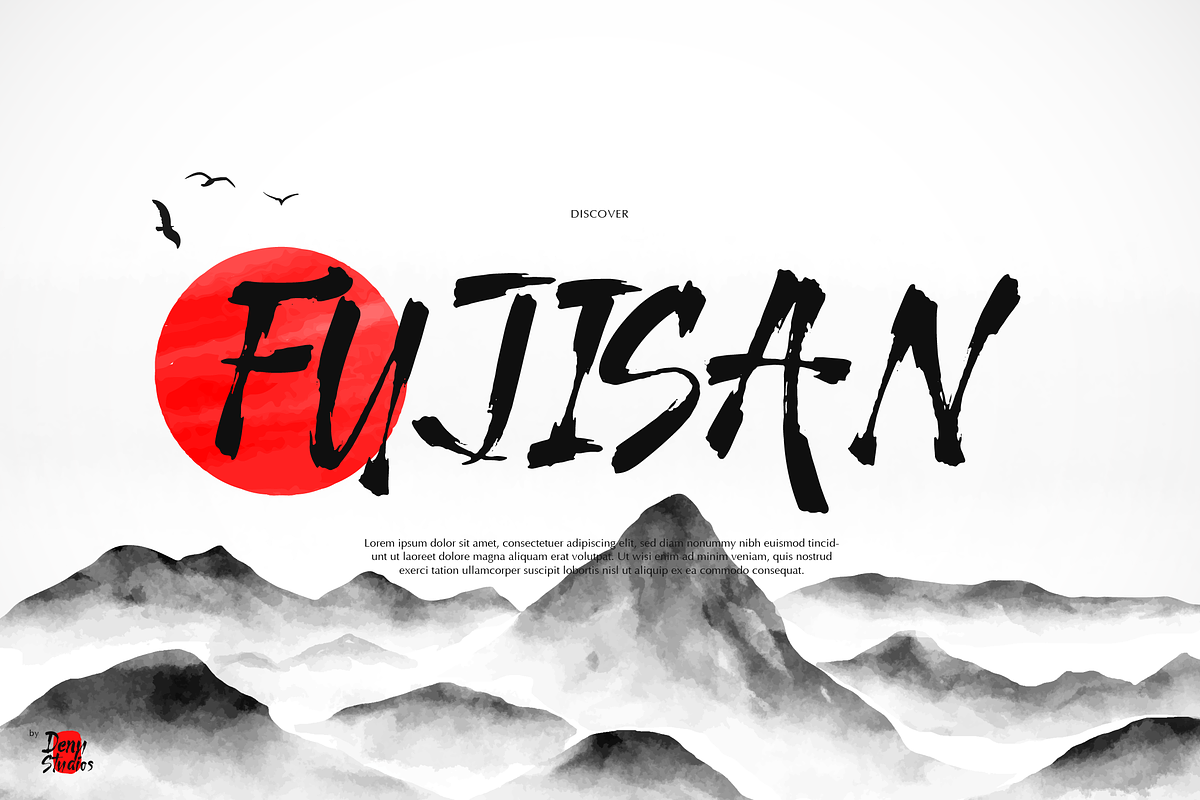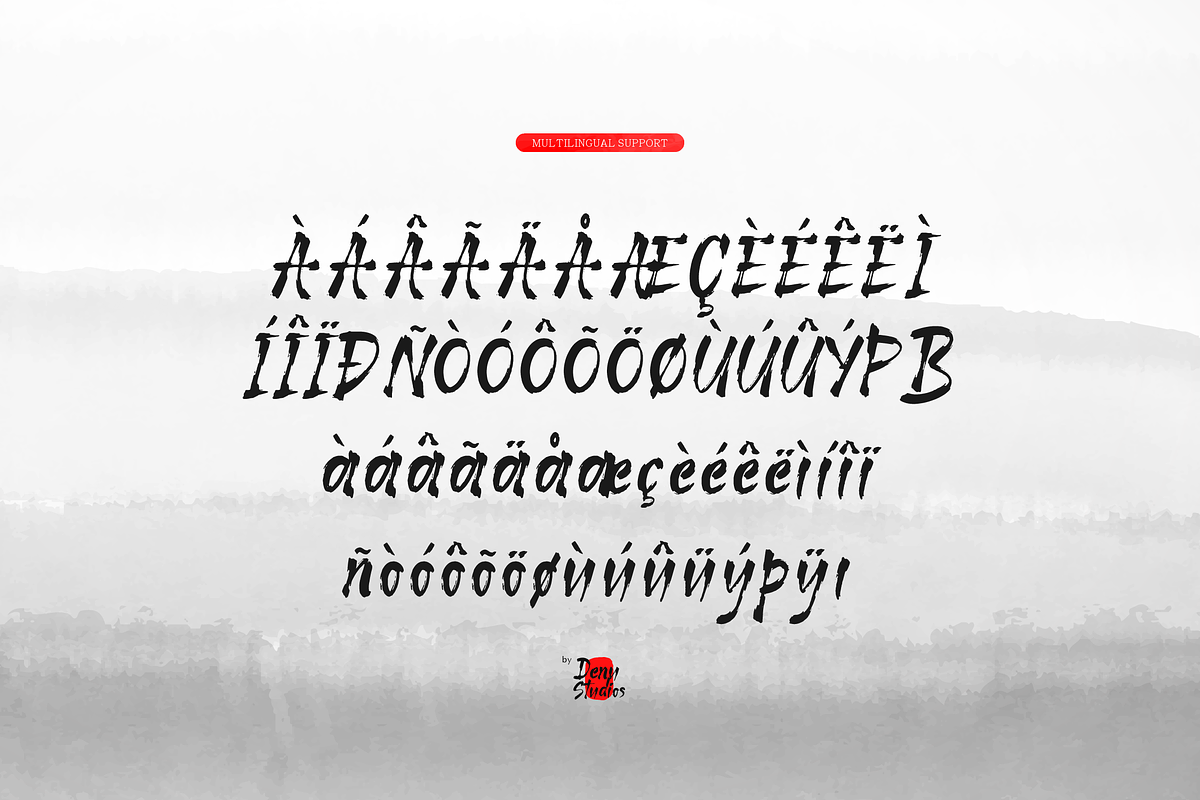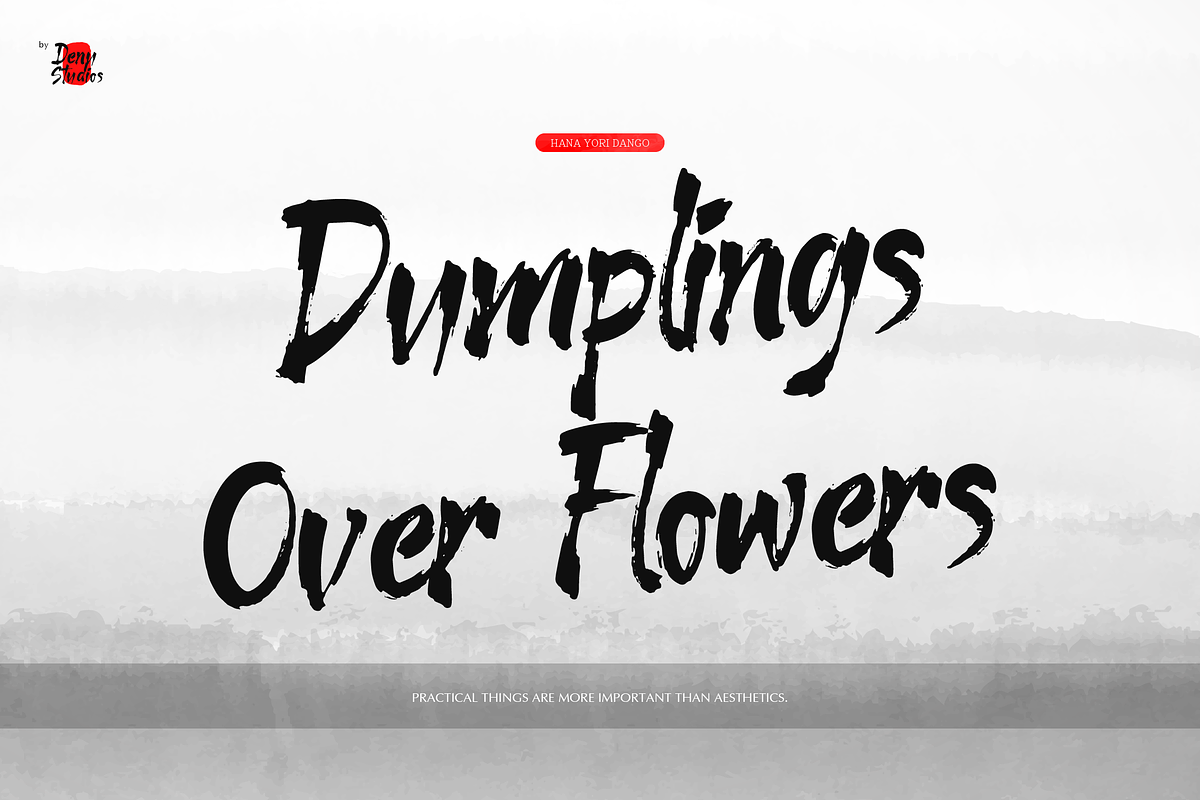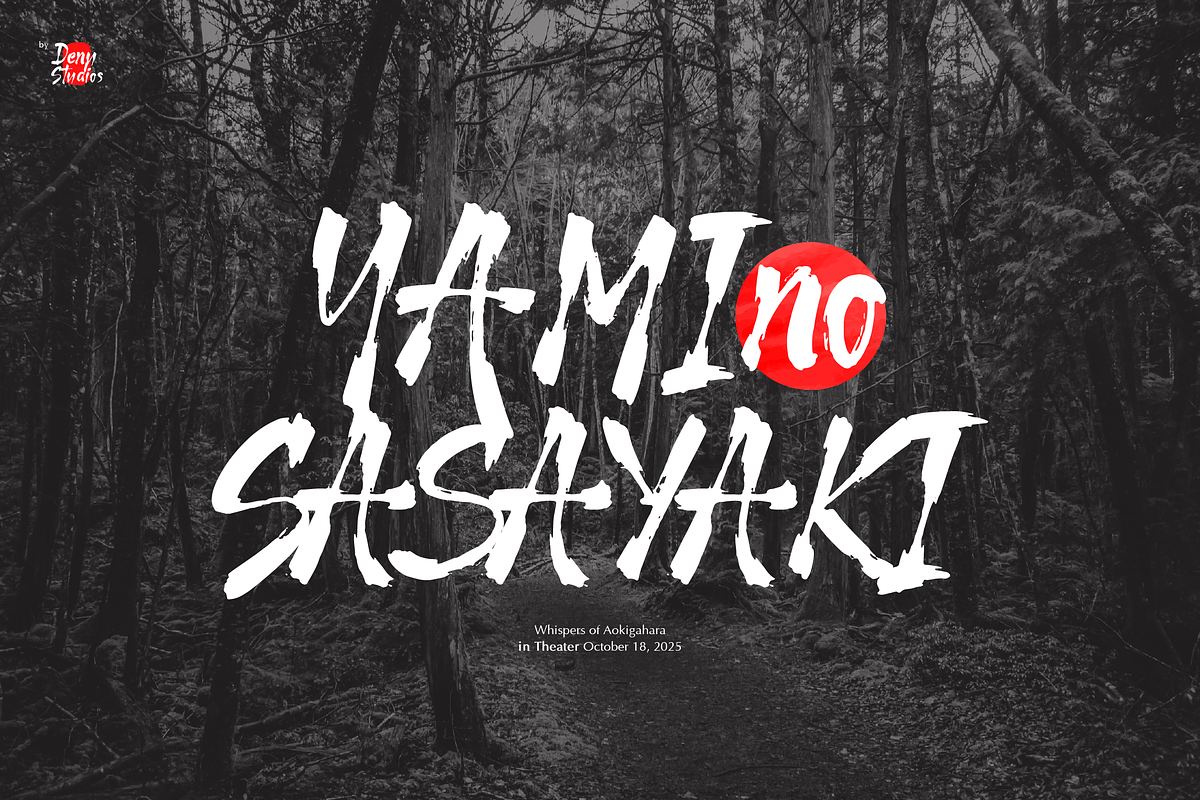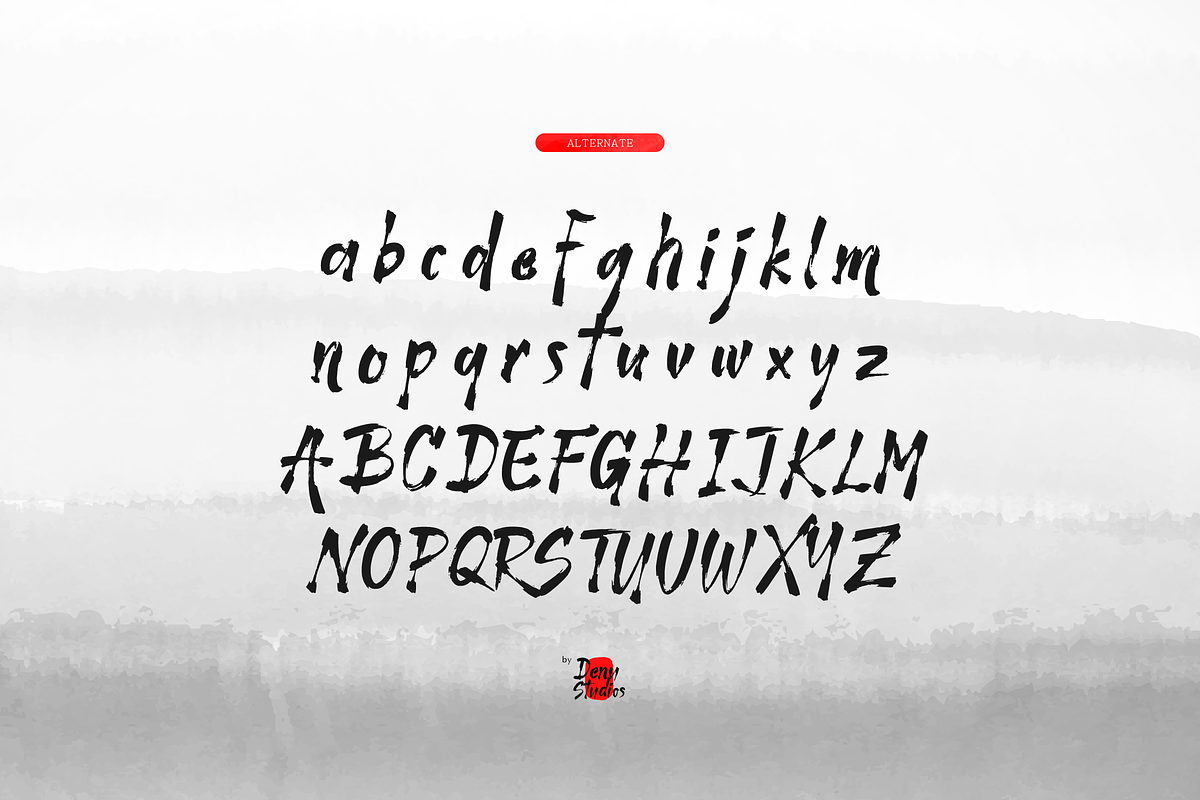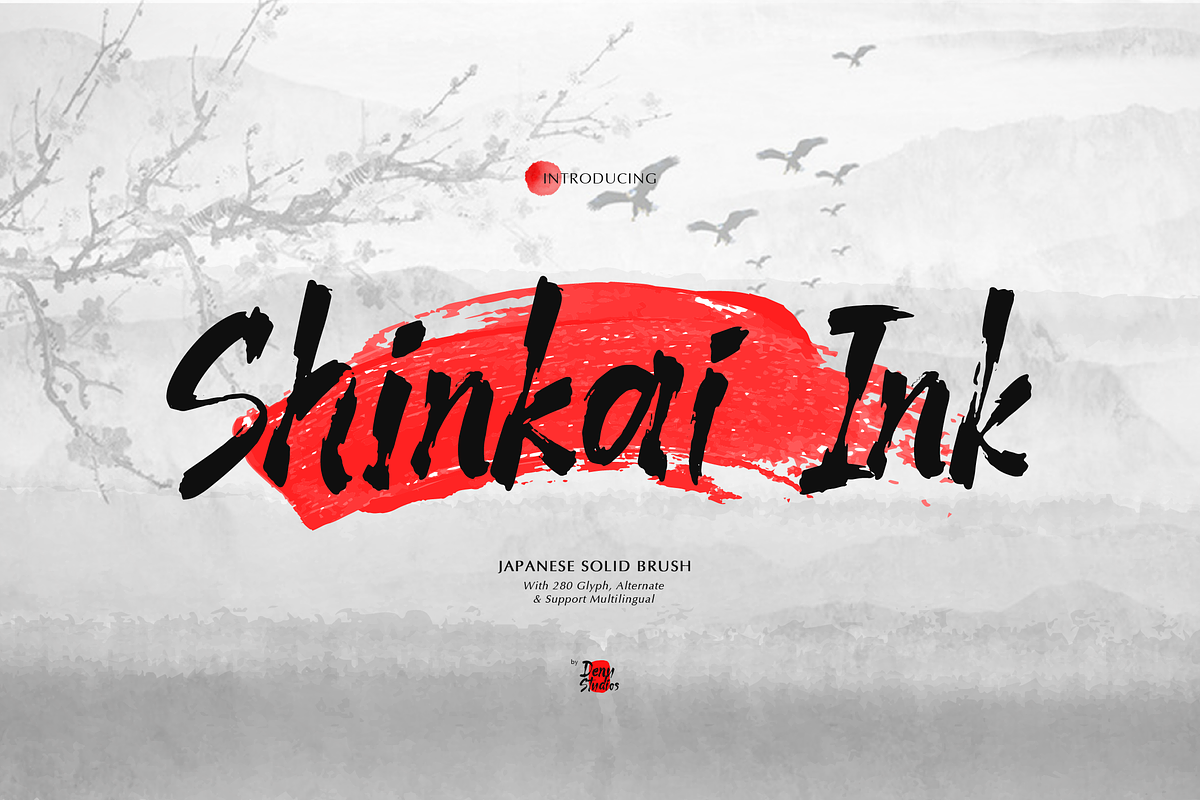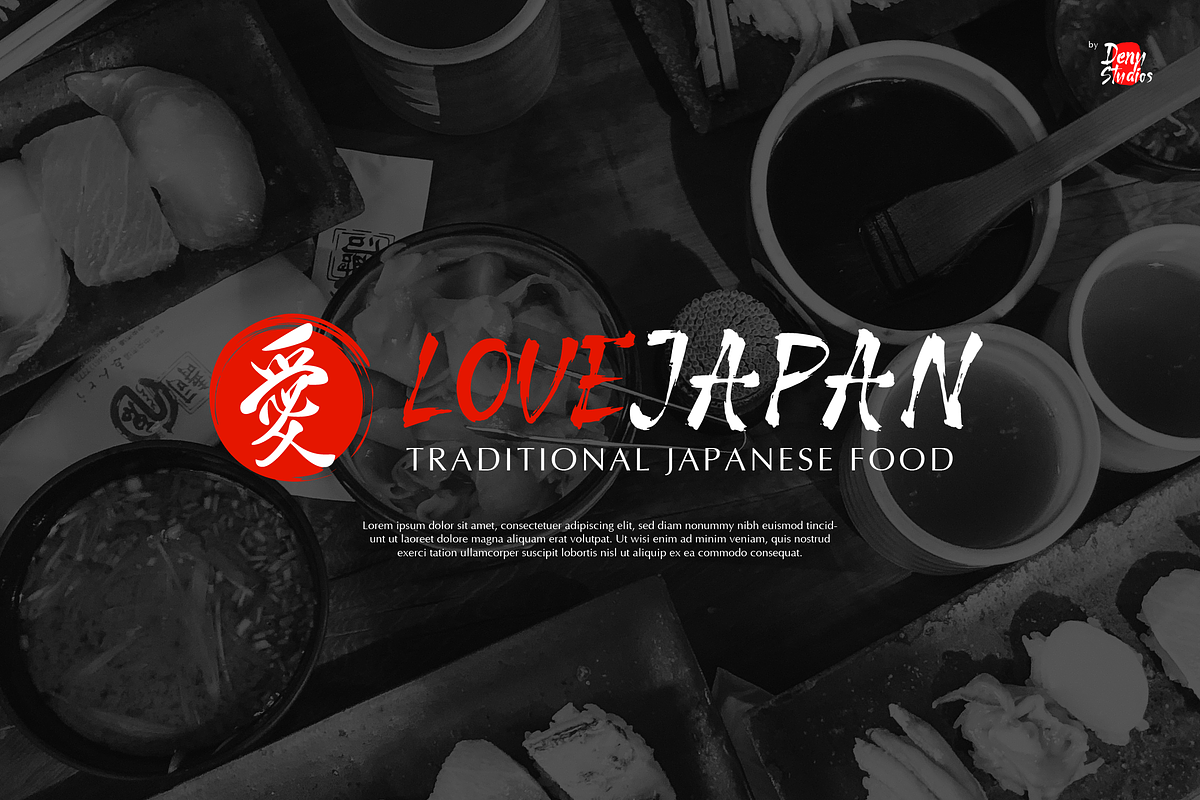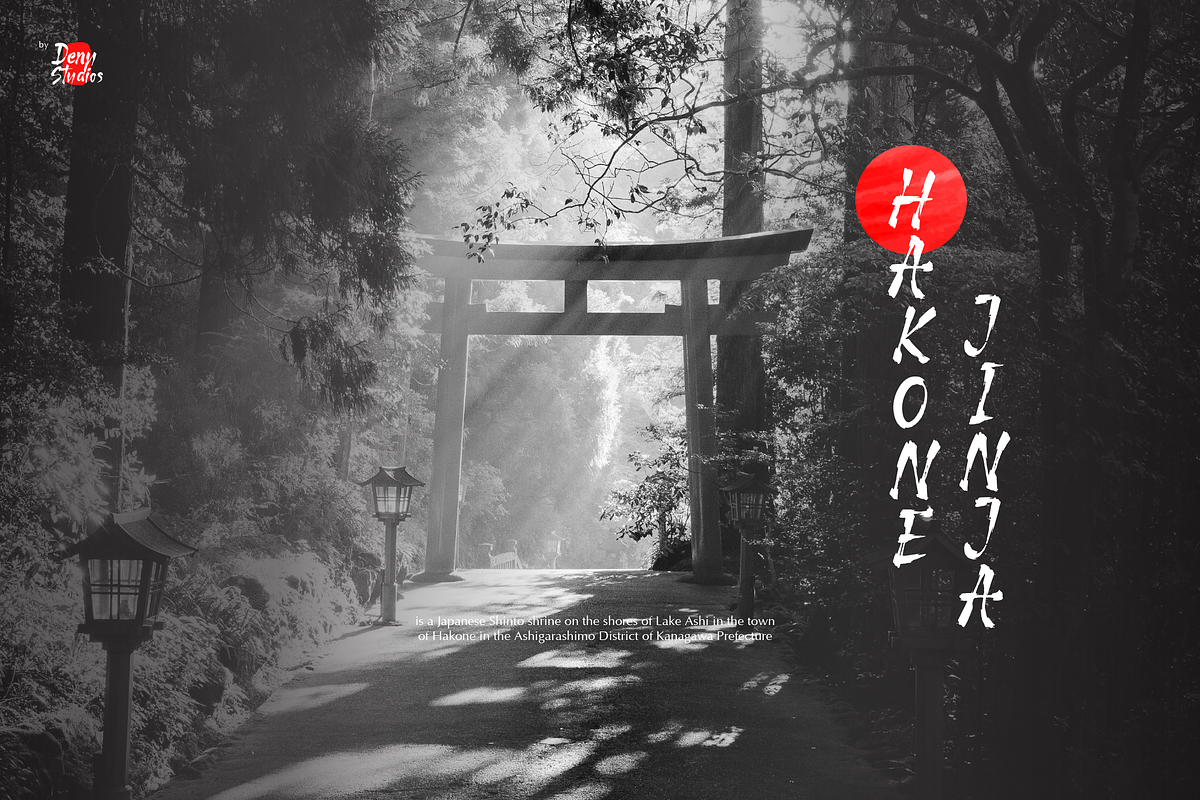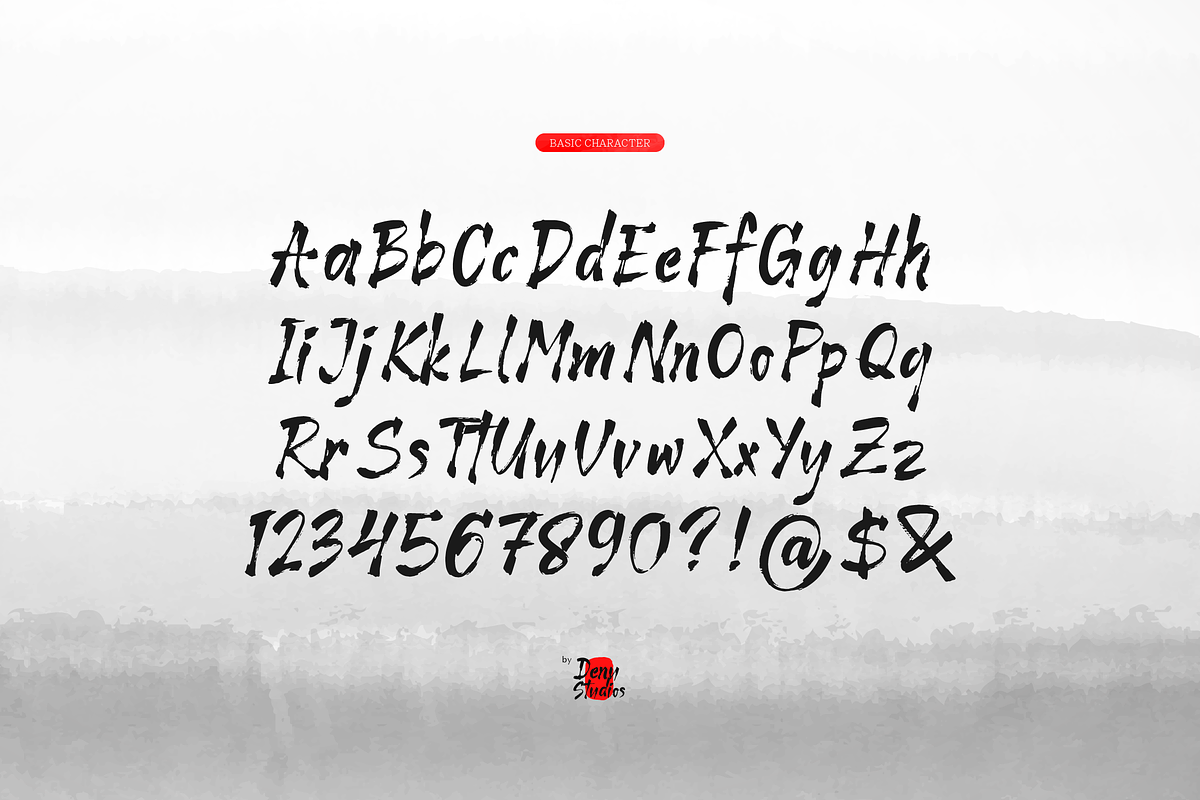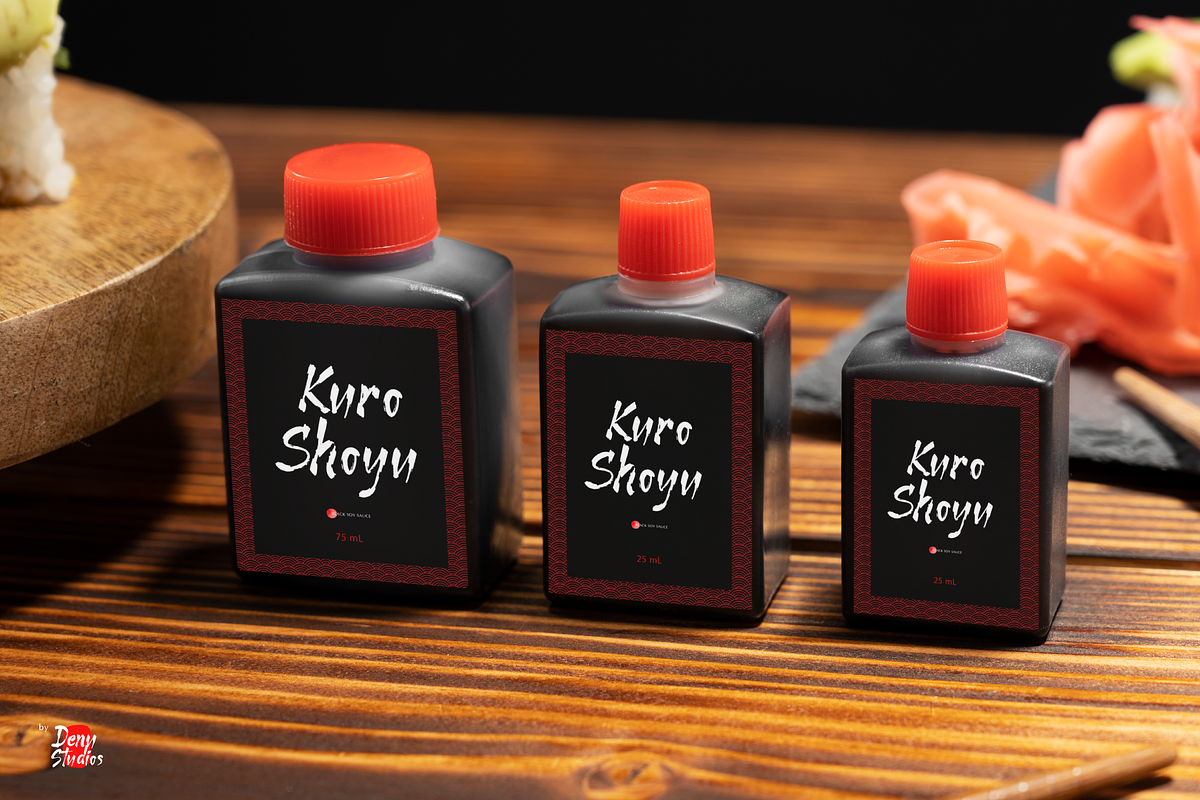
Shinkai Ink | Japanese Solid Brush
=============================================================== DESKRIPSI FONT WEBSITE BERBAYAR Shinkai Ink | Japanese Solid Brush, from Denustudios, suitable for any projects such as: logos, branding projects, homeware designs, product packaging, mugs, quotes, posters, shopping bags, t-shirts, book covers, name card, invitation cards, greeting cards, label, photography, watermark, special events, and all your other lovely projects that need a Japanese Solid Brush taste.